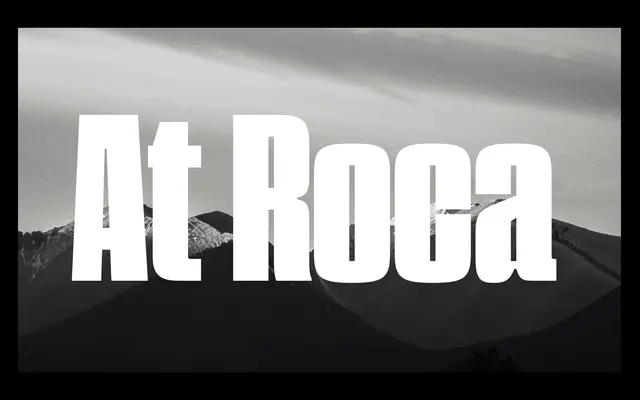
At Roca
Arillatype · Pedro Arilla · 2023
A single-weight display serif by Pedro Arilla, drawing on Spaghetti Western aesthetics and classic curves for large-scale, expressive use.
Designed by Pedro Arilla and released in October 2023, At Roca is a display serif built around luxurious curves and distinct open counters that read clearly at headline sizes. The design draws an unlikely line between Spaghetti Western visual culture and contemporary display typography, with OpenType alternates for the 'a' and 'y' offering some compositional flexibility. With only a single Regular weight and no italic, it is a focused, single-purpose tool rather than a versatile family.
A single-weight display serif with pronounced curves and distinct counters, designed explicitly for large-size use, drawing on Spaghetti Western visual culture and classic elegance rather than text-setting conventions.